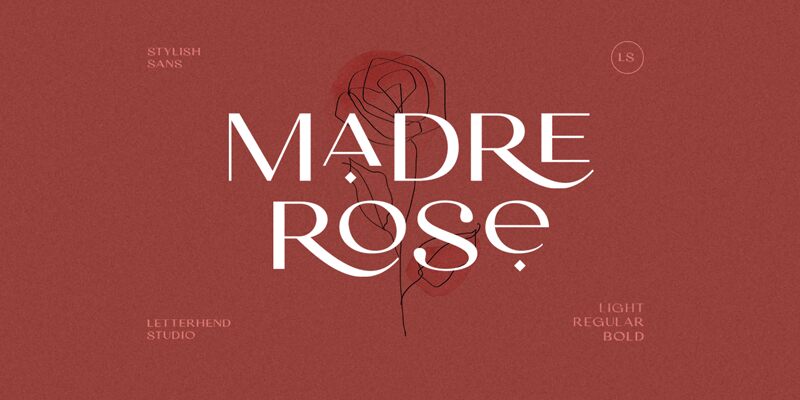
Introducing Madre Rose, the elegant and sophisticated font designed by Sarid Ezra. With its semi-light weight and wide width, this font exudes a sense of grandeur and refinement that is perfect for any high-end project. Whether it's a wedding invitation, a luxury brand logo, or a magazine spread, Madre Rose will add an air of exclusivity and class to your work. Its flowing curves and delicate lines make it an ideal choice for anything from fashion design to fine art prints. Take your project to the next level with Madre Rose – the epitome of elegance in typeface design.
Madre Rose